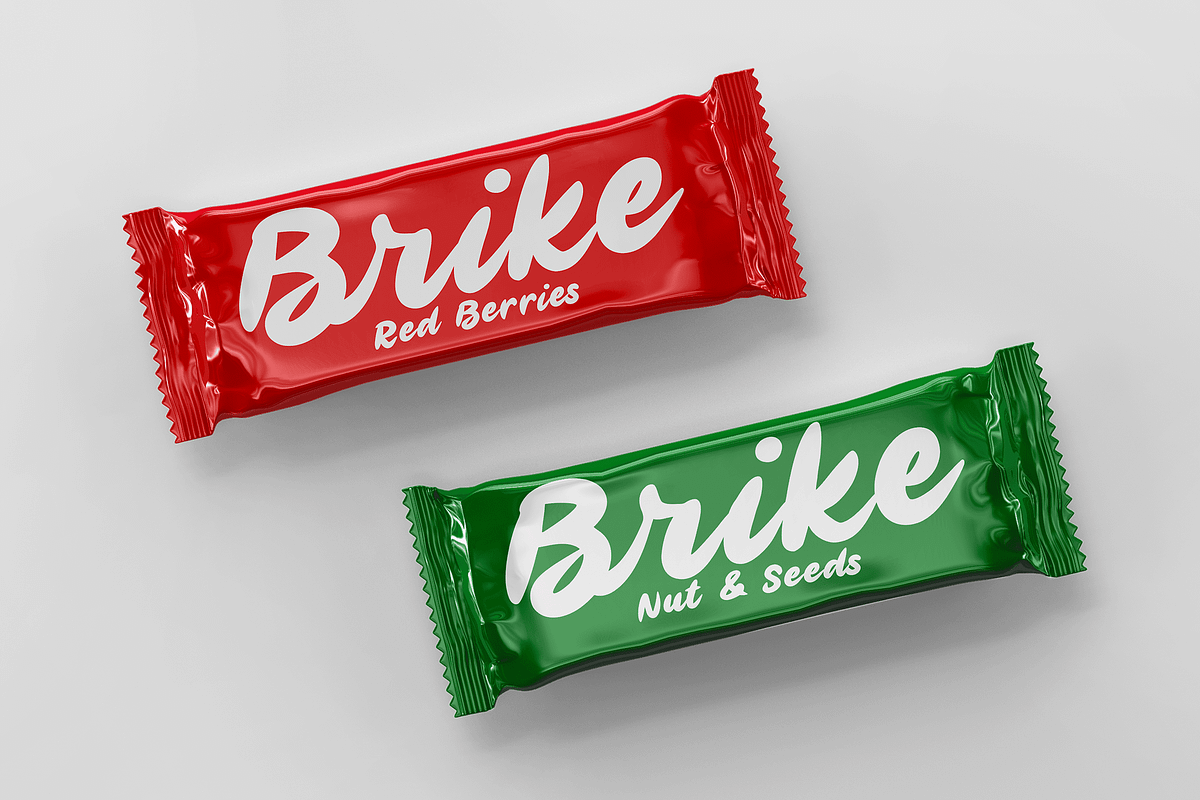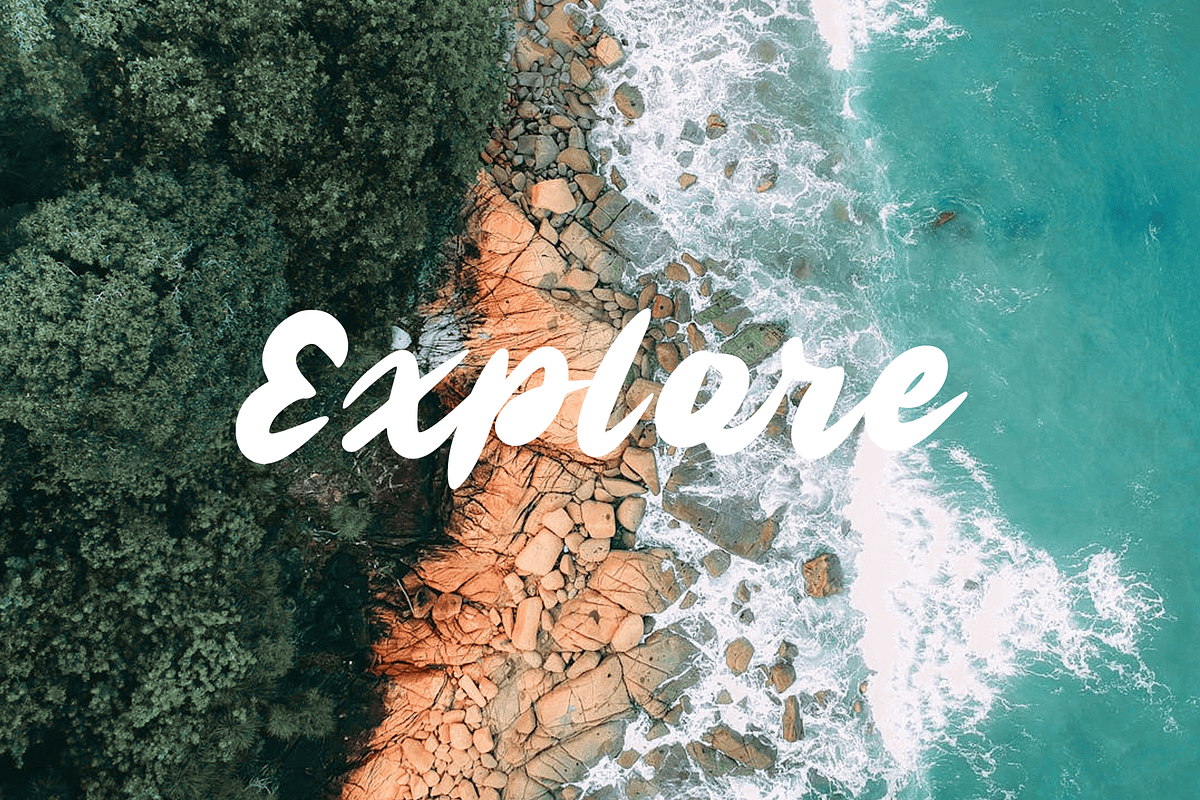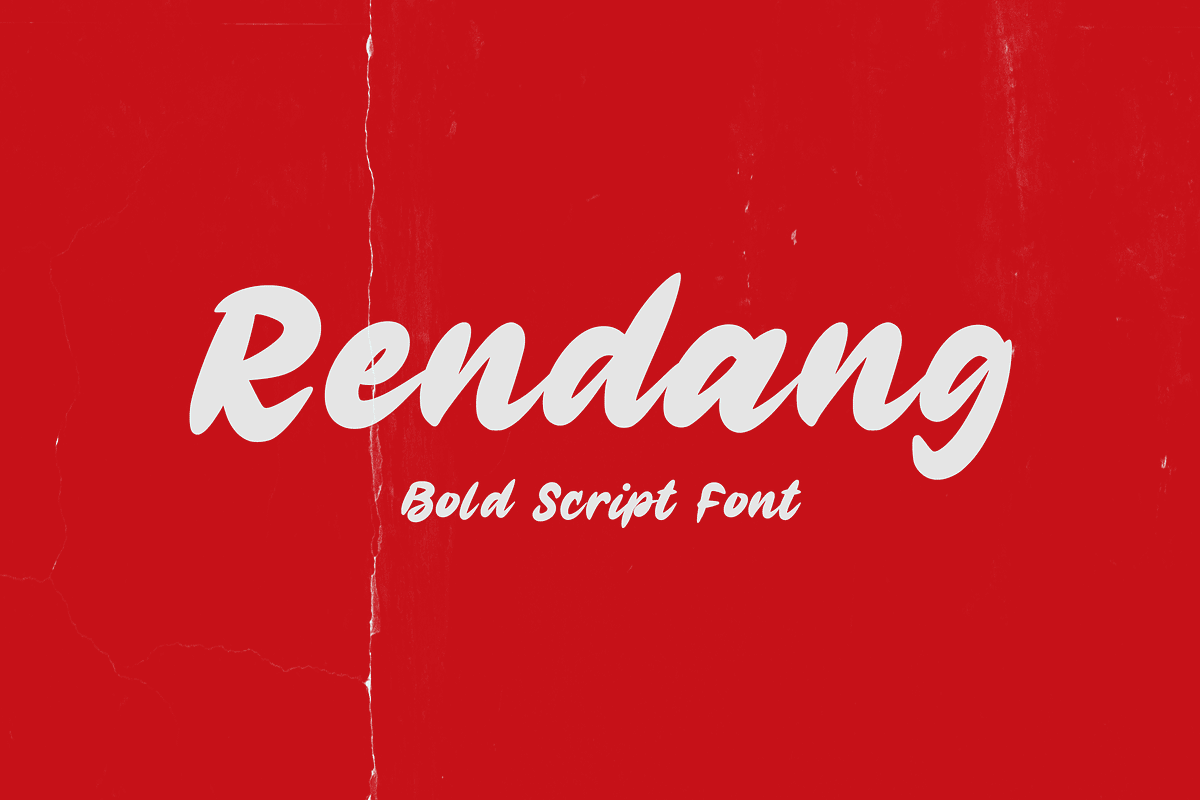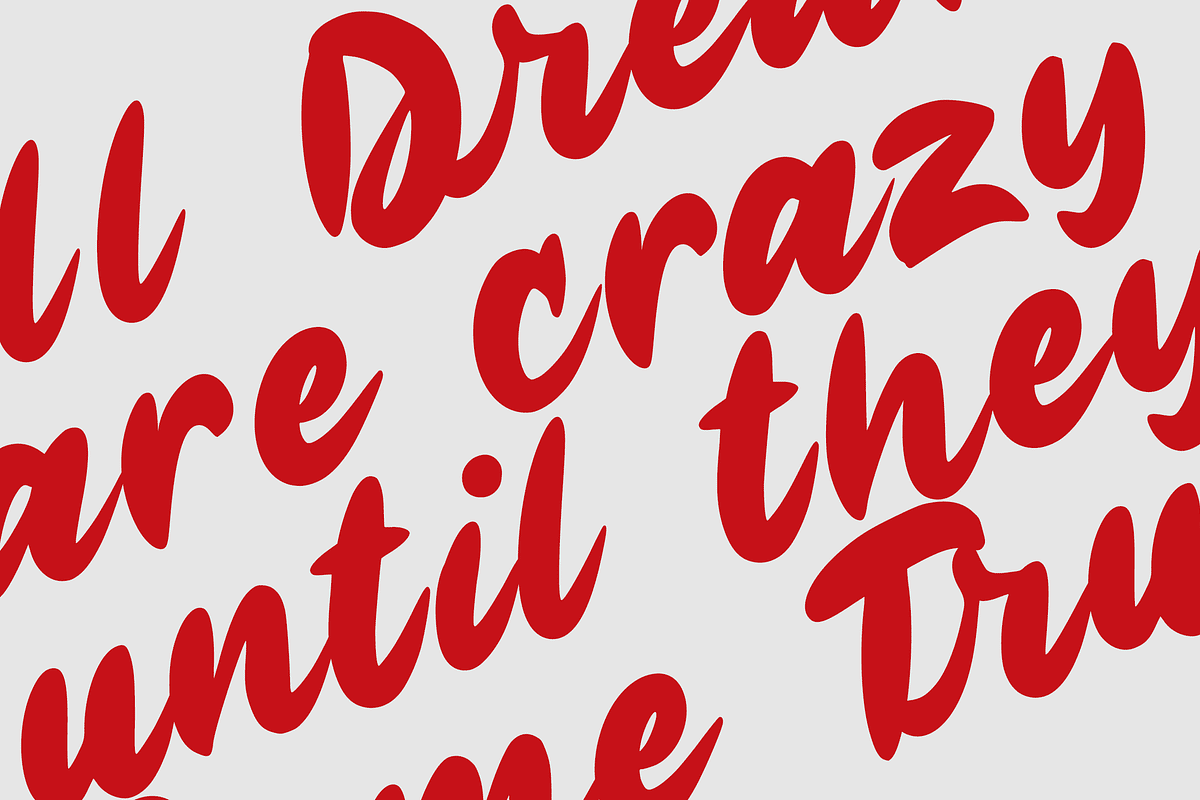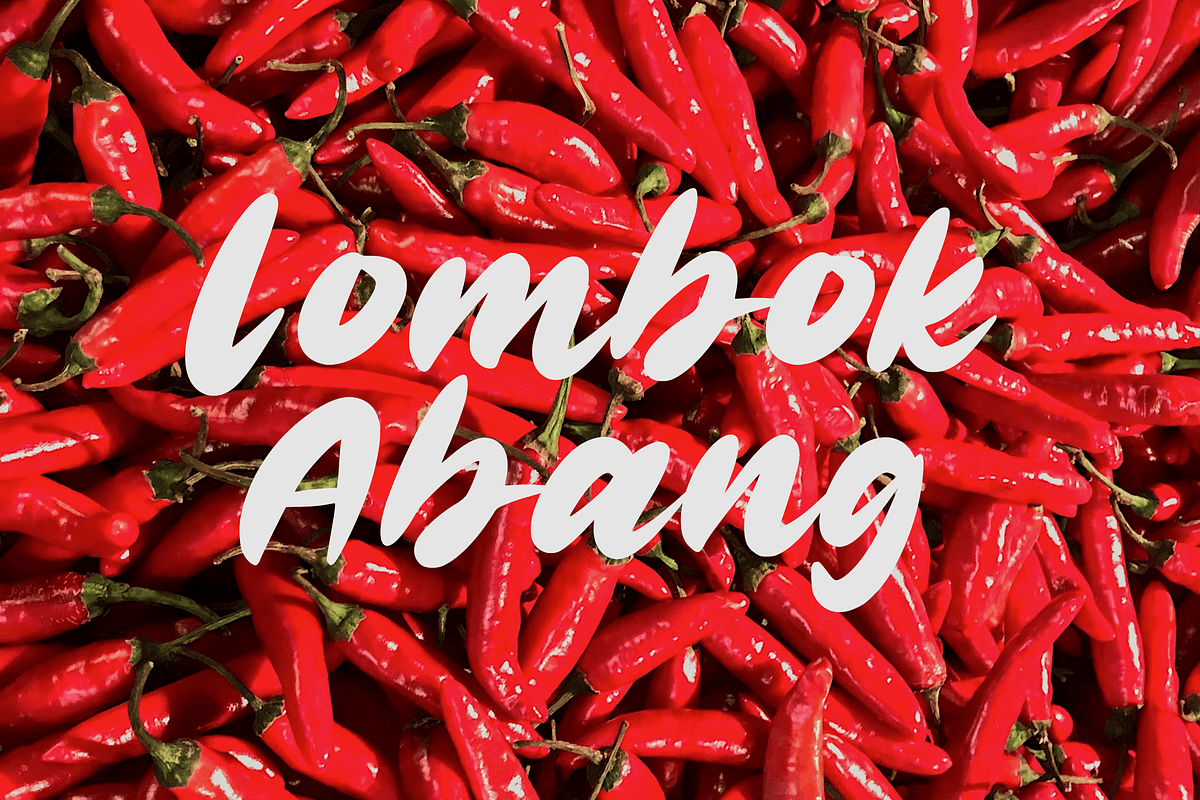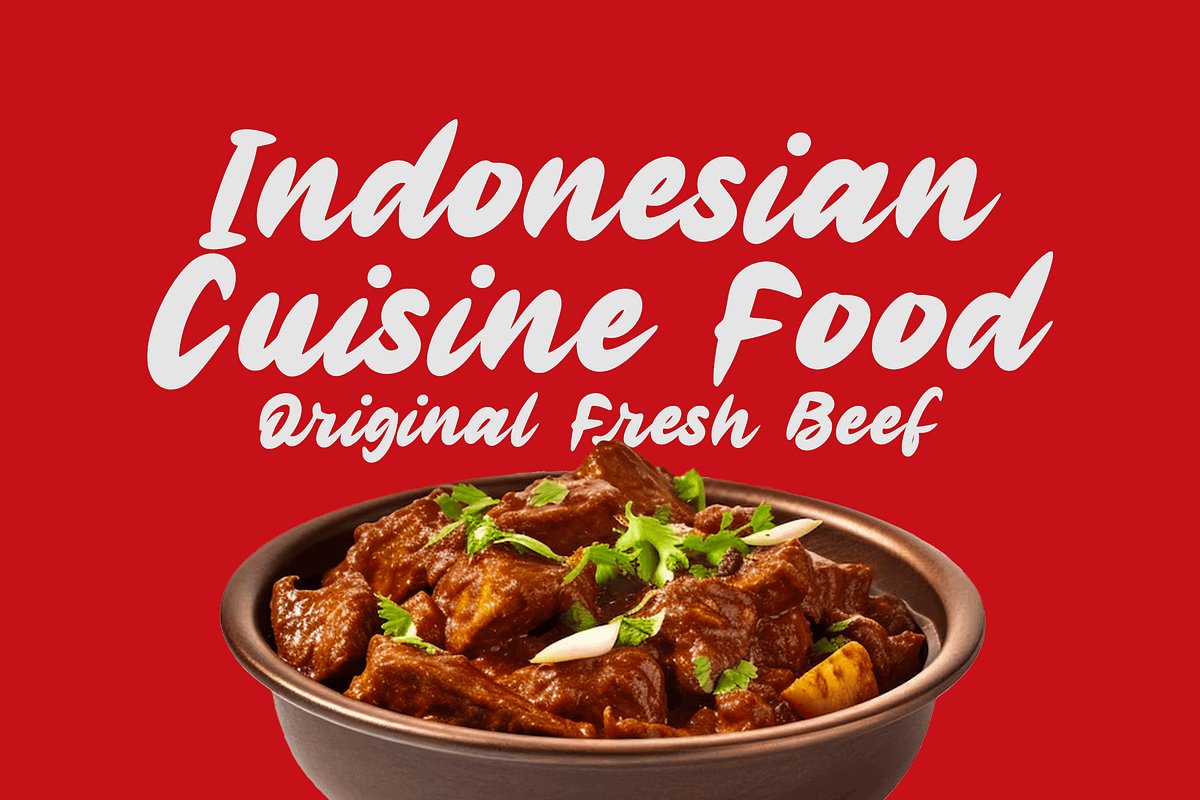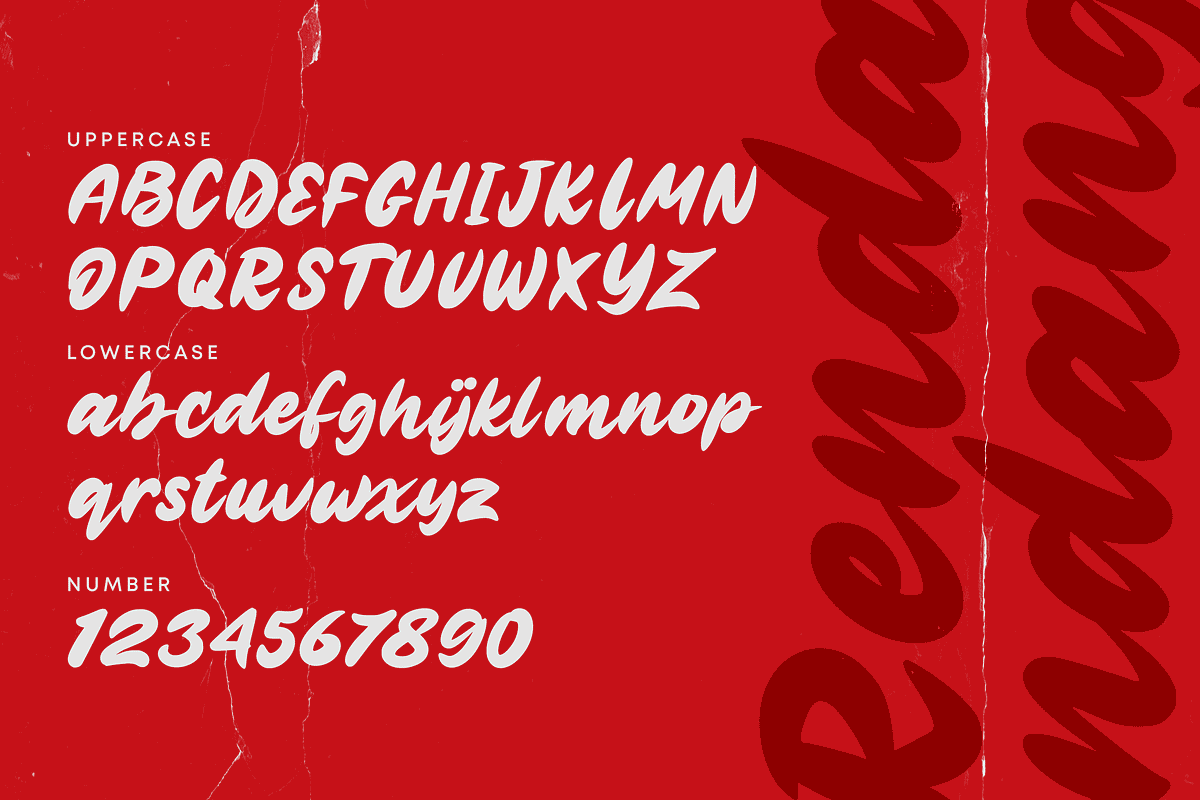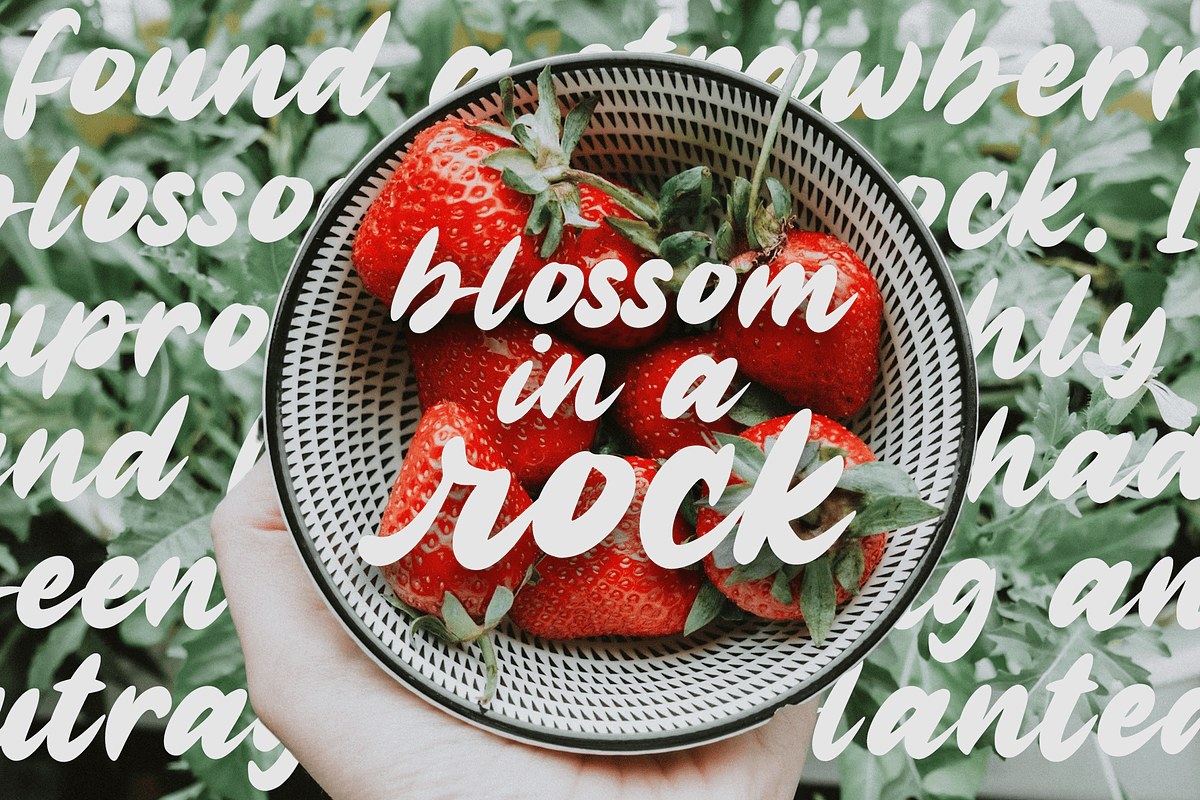
Rendang
RENDANG is a Bold Script font created with the original, handcrafted quick stroke technique! Consists of all capital letters, gives an extraordinarily strong and confident impression. You can use RENDANG repeatedly for your design needs such as branding projects, web banner, quotes, homeware designs, product packaging, headlines, simply as a stylish text overlay to any background image, et. Cheers 🍻